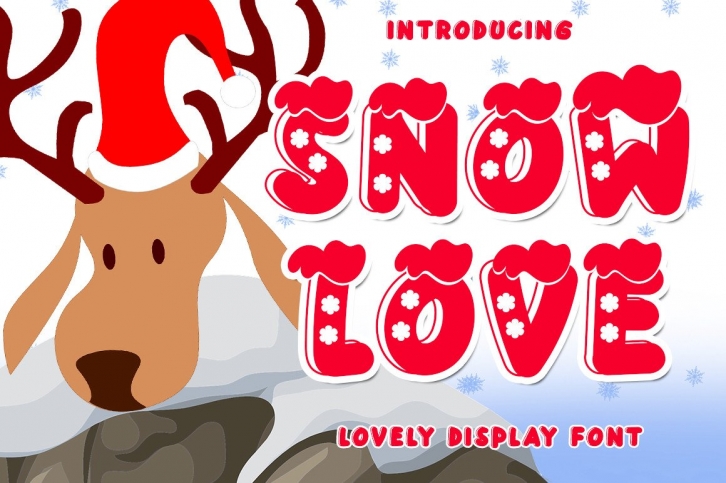
Snow Love is a cute-styled and colorful display font. It embodies playfulness and authenticity and is the perfect choice for any children activity or school project.